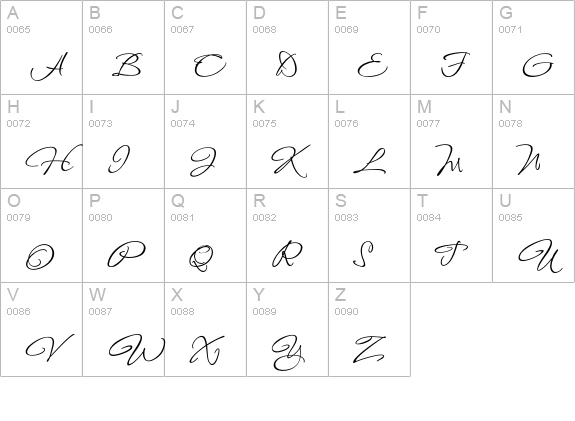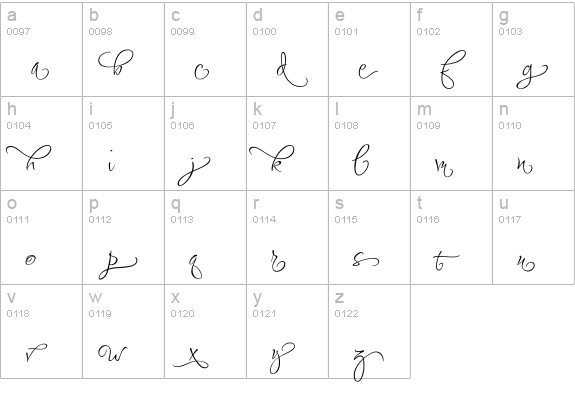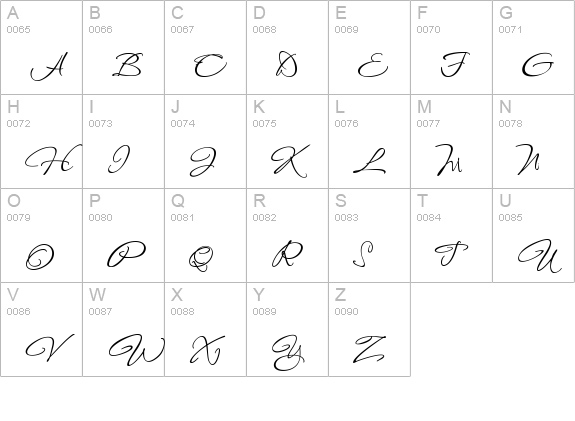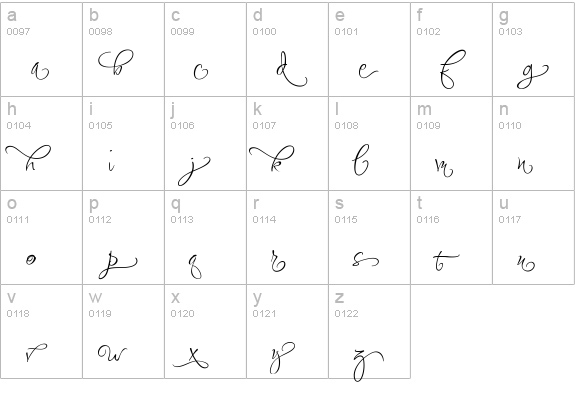
FugglesTen Font Details
FugglesTen font is a versatile and eye-catching typeface that exudes a unique charm and elegance. Its intricate yet clean design makes it perfect for a wide range of creative projects, from branding to editorial design. With its bold strokes and distinct character, FugglesTen font is sure to make a statement and leave a lasting impression. What sets FugglesTen font apart is not just its striking appearance, but also the fact that it is available for free download at FontsMarket.com. This means that you can easily access this stunning font and use it in your projects without any cost. Whether you are a designer, artist, or simply someone looking to add a touch of sophistication to your work, FugglesTen font is a fantastic choice that won't break the bank. Embrace the beauty and versatility of FugglesTen font today by downloading it for free at FontsMarket.com. Elevate your designs with this elegant and captivating typeface, and let your creativity shine with this exceptional font at your fingertips.